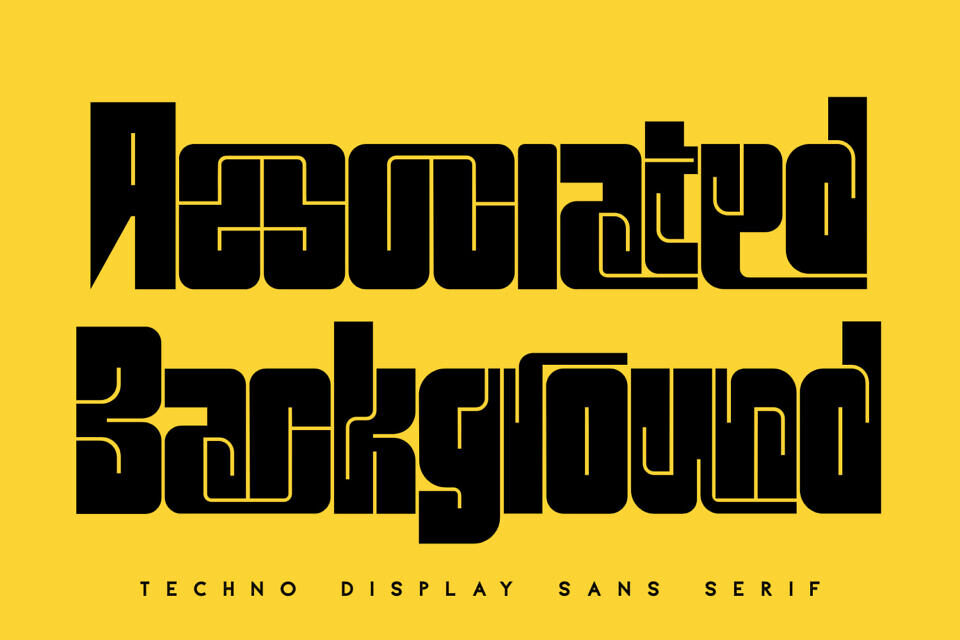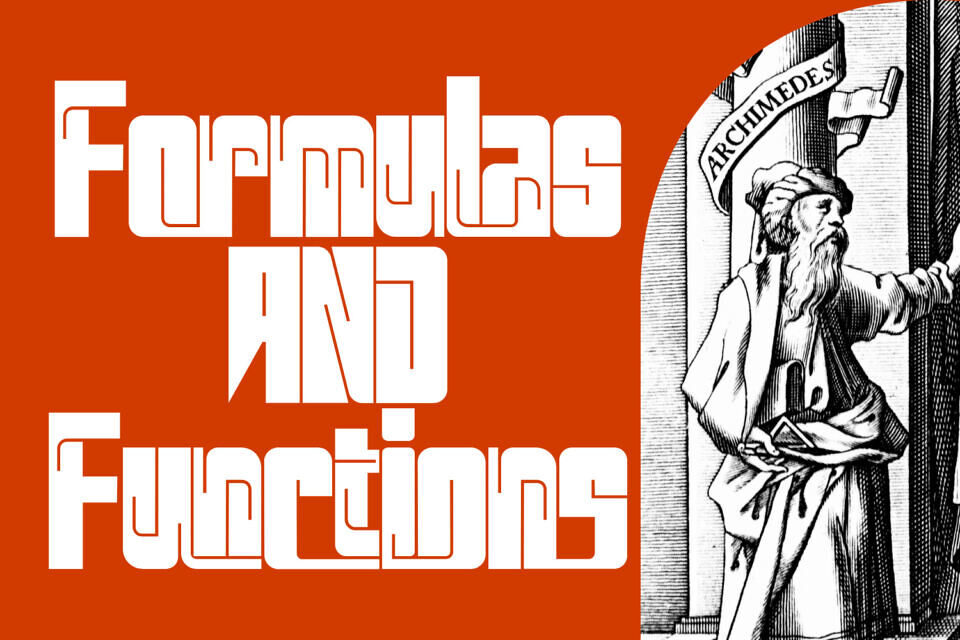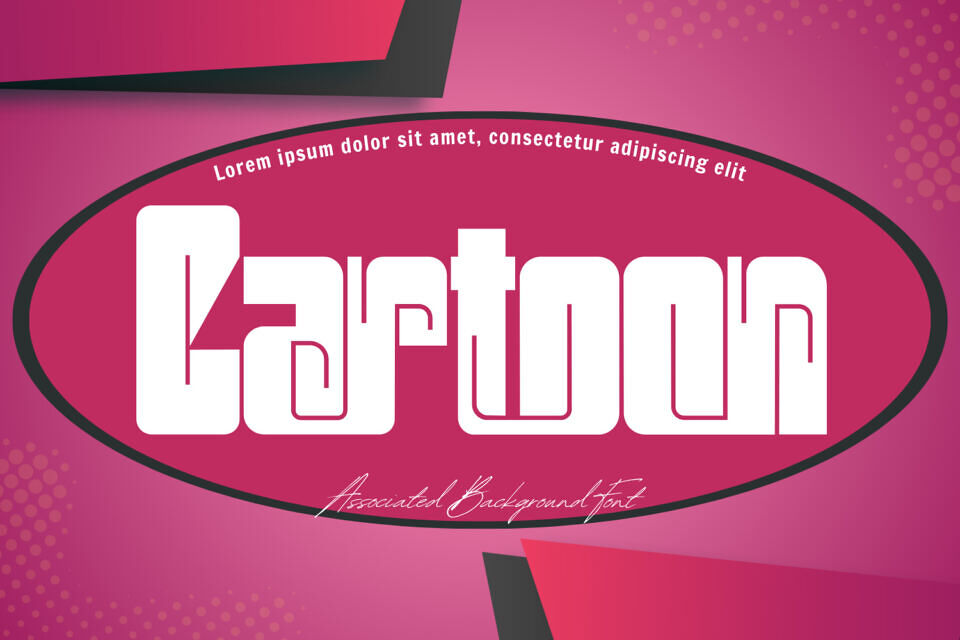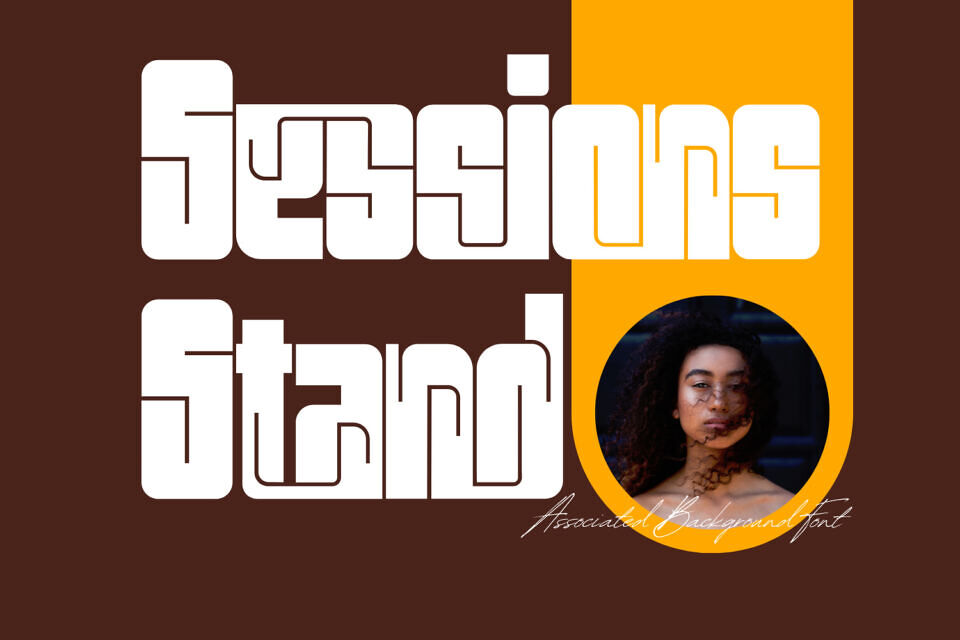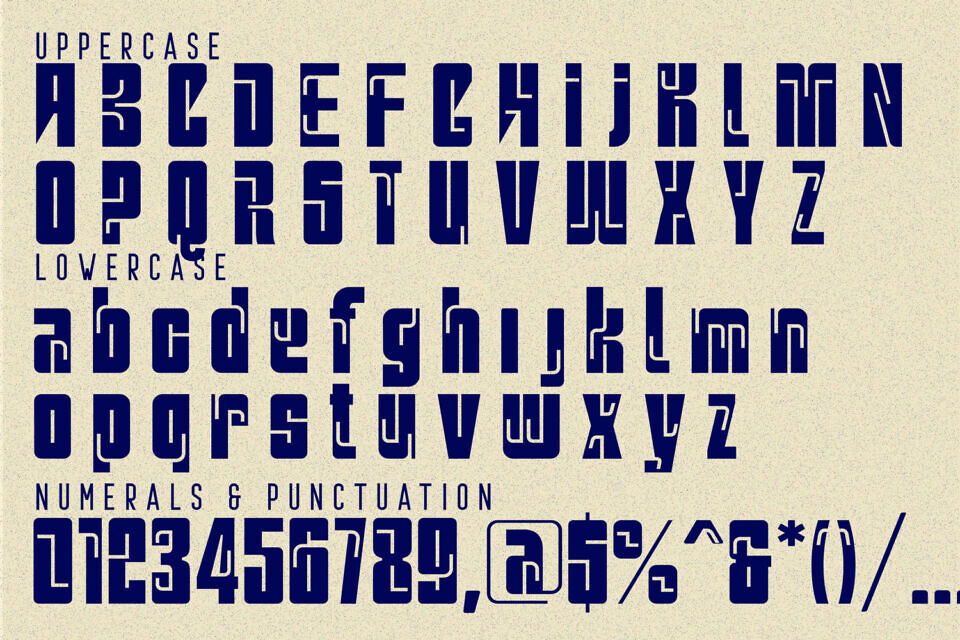
Associated Background – Geometric Font is a bold geometric display typeface designed with strong modular forms and distinctive retro-futuristic character. Built from powerful shapes with softly rounded corners, this font delivers an expressive and highly recognizable visual identity.
Featuring both Uppercase and Lowercase letters, approximately 100 custom special ligatures, full Numerals & Punctuation, and extensive Accented characters, Associated Background allows designers to craft striking wordmarks and headline compositions. Its ultra-bold weight, connected letterforms, and experimental ligature system make it perfect for logos, posters, branding, album covers, and statement-driven designs that demand attention.